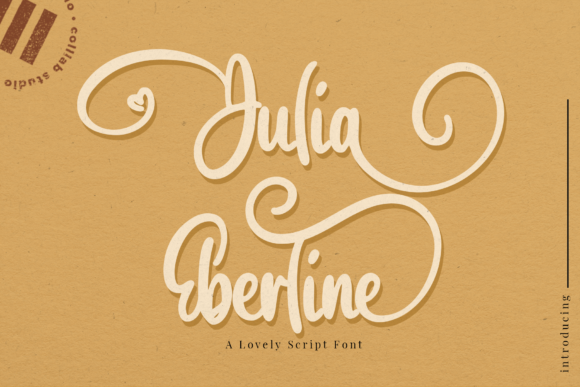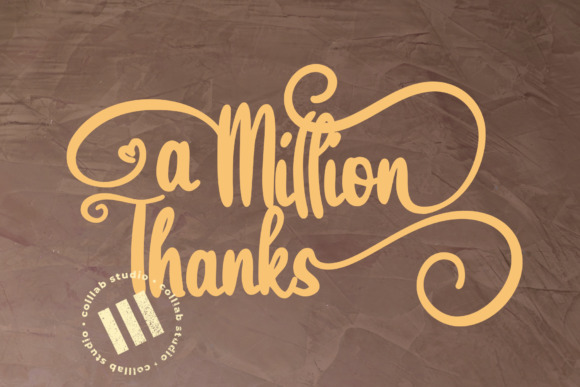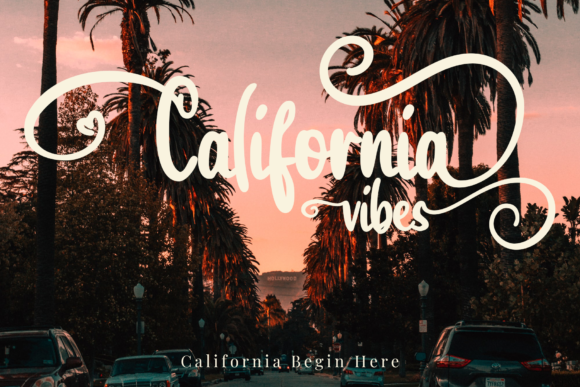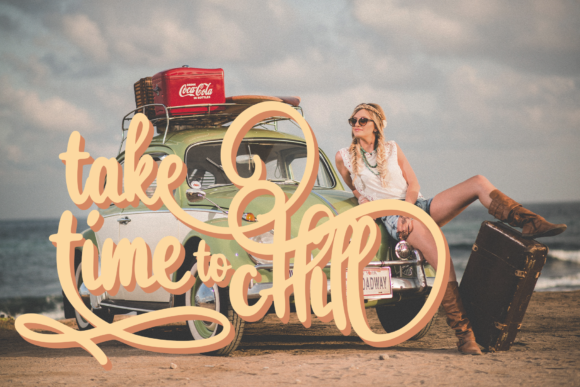
Julia Eberline Font
About Julia Eberline Font
Julia Eberline is an exquisite handwritten font, masterfully designed to become a true favorite. It maintains its classy calligraphic influences while feeling contemporary and fresh. Fall in love with it and bring your projects to the highest levels!